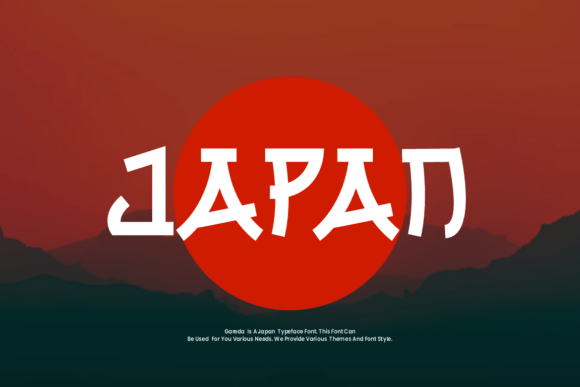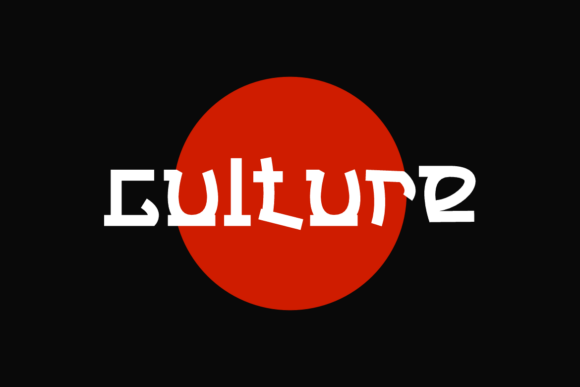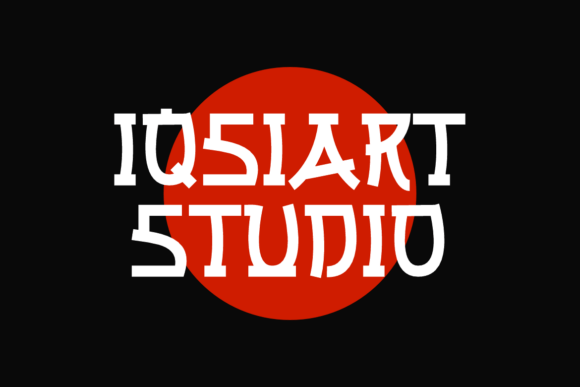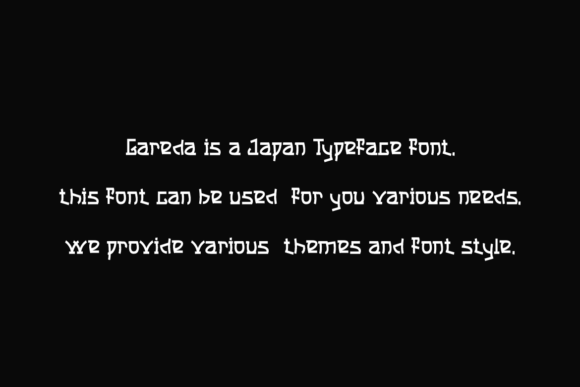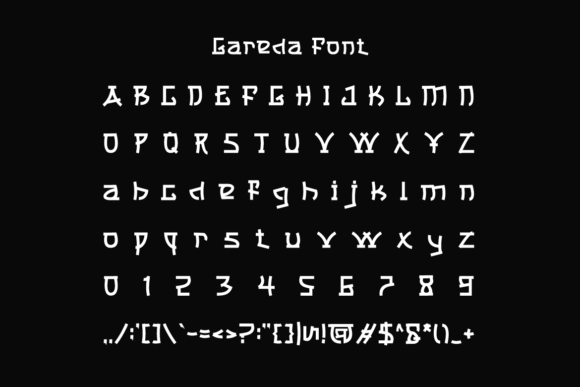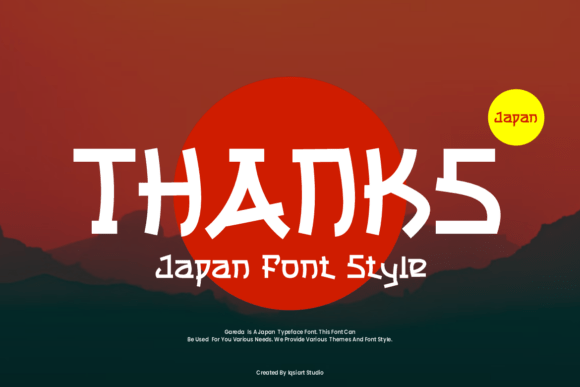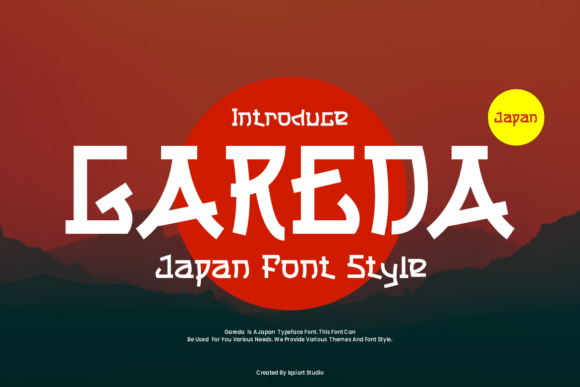
Introducing Garena: A Bold Japanese-Style Display Font
In the world of typography, fonts play a crucial role in conveying the tone and aesthetic of a design. For designers and crafters looking to add an Eastern flair to their projects, Garena is a bold Japanese-style display font that is sure to impress. Inspired by traditional brush strokes and angular forms, Garena brings an East Asian aesthetic to your typography, making it ideal for cultural projects, Asian-themed branding, gaming titles, and dynamic logos.
The Inspiration Behind Garena
Garena’s design is rooted in traditional Japanese typography, with its bold structure and sharp lines evoking the classic brush strokes of ancient Asian calligraphy. The font’s angular forms and geometric shapes give it a modern edge, making it perfect for designers looking to create a bold and impactful look. Whether you’re working on a project that requires a touch of Eastern elegance or a bold statement piece, Garena is the perfect choice.
Key Features of Garena
- Bold Structure: Garena’s bold structure makes it perfect for headlines, titles, and logos that require a strong presence.
- Sharp Design: The font’s sharp lines and angular forms give it a modern and edgy look that’s sure to grab attention.
- East Asian Aesthetic: Garena’s design is inspired by traditional East Asian typography, making it perfect for cultural projects and Asian-themed branding.
- Versatility: Garena can be used for a wide range of design projects, from packaging and posters to titles and logos.
Use Cases for Garena
Garena is a versatile font that can be used in a variety of design projects. Here are some use cases where Garena shines:
- Cultural Projects: Garena’s East Asian aesthetic makes it perfect for cultural projects, such as festivals, events, and exhibitions.
- Asian-Themed Branding: The font’s bold structure and sharp design make it ideal for Asian-themed branding, such as restaurants, cafes, and retail stores.
- Gaming Titles: Garena’s modern and edgy look makes it perfect for gaming titles, such as game logos, posters, and in-game text.
- Dynamic Logos: The font’s bold structure and sharp lines make it ideal for dynamic logos that require a strong presence.
Tips for Using Garena
Here are some tips for using Garena in your design projects:
- Pair with Neutral Fonts: Pair Garena with neutral fonts to create contrast and visual interest.
- Experiment with Colors: Garena looks great in bold colors, so don’t be afraid to experiment with different hues and shades.
- Use for Headlines: Garena’s bold structure makes it perfect for headlines and titles.
Garena is a bold Japanese-style display font that brings an East Asian aesthetic to your typography. With its bold structure, sharp design, and versatility, Garena is perfect for designers and crafters looking to add an Eastern flair to their projects. Whether you’re working on a cultural project, Asian-themed branding, gaming title, or dynamic logo, Garena is sure to make a statement. So why not give Garena a try and see how it can elevate your design?